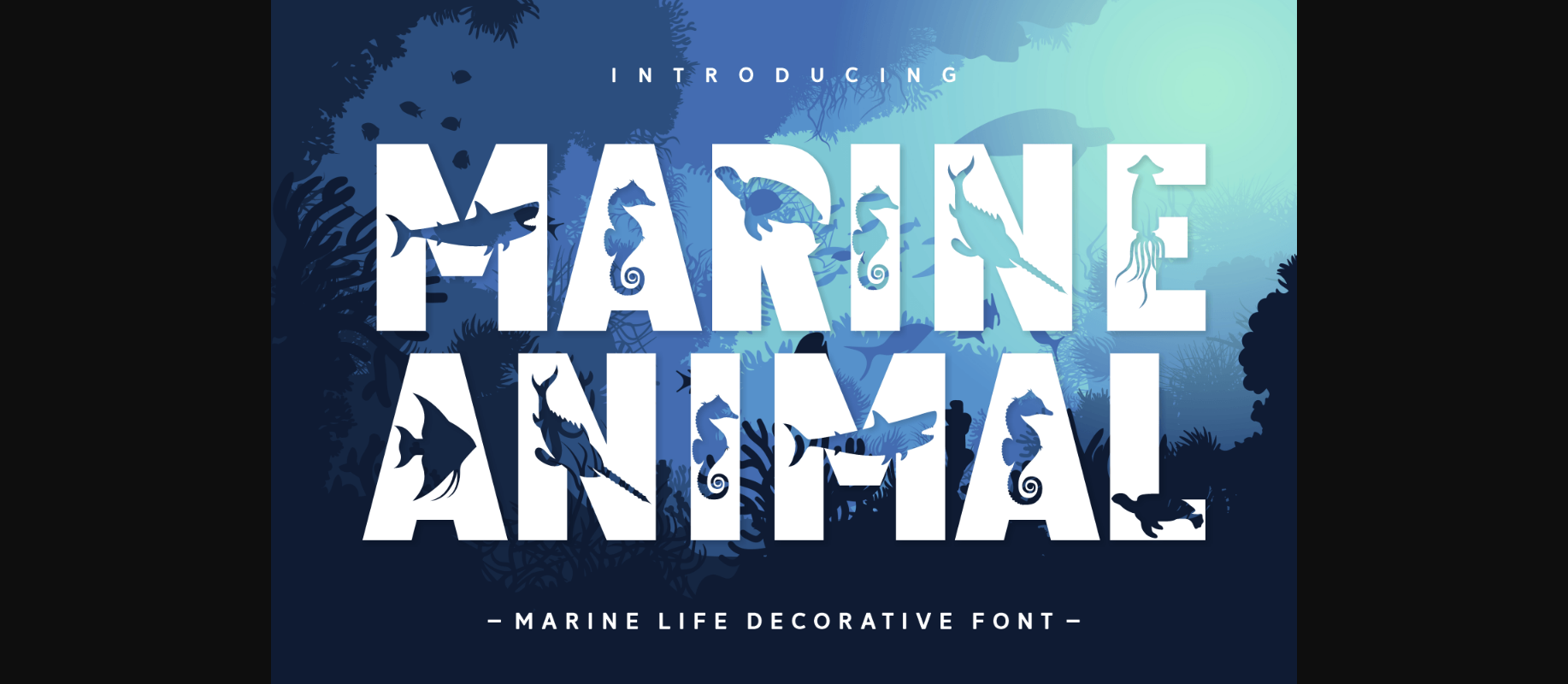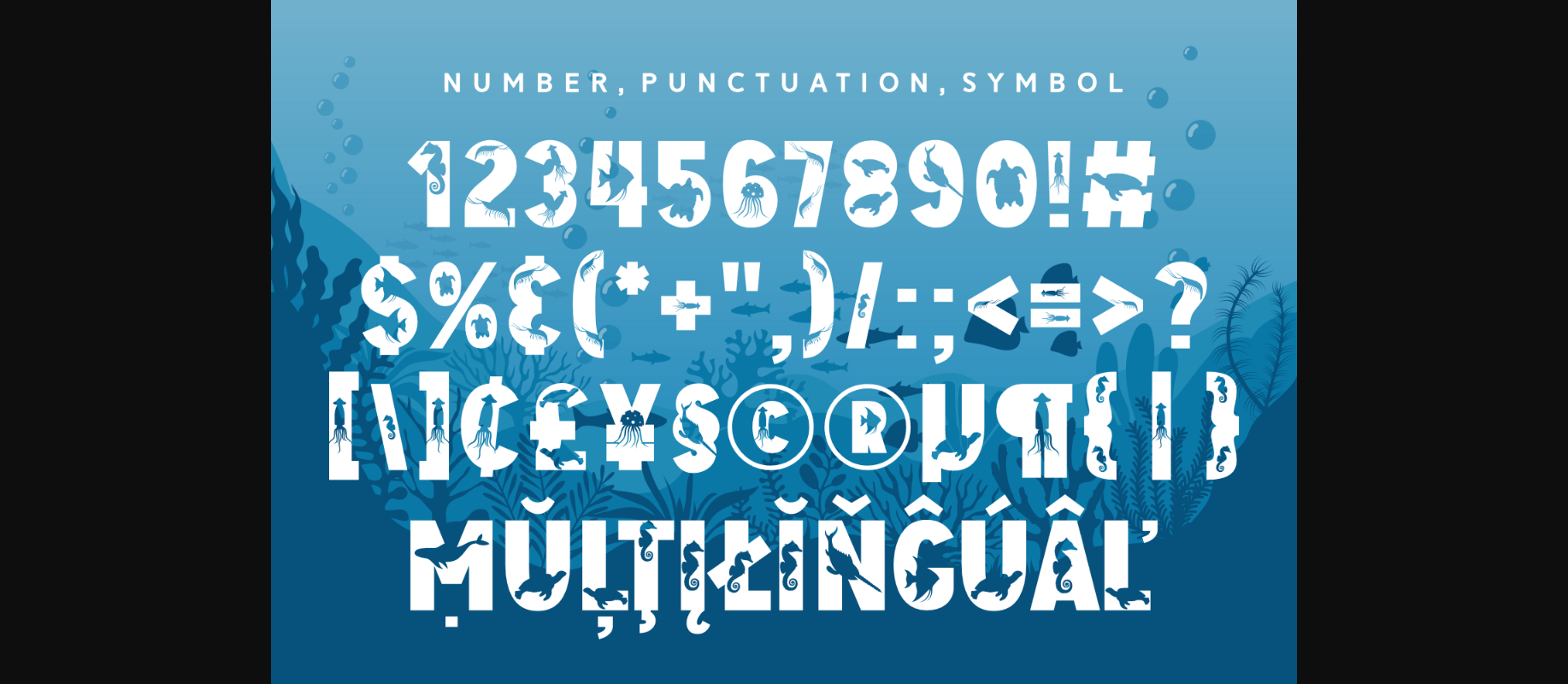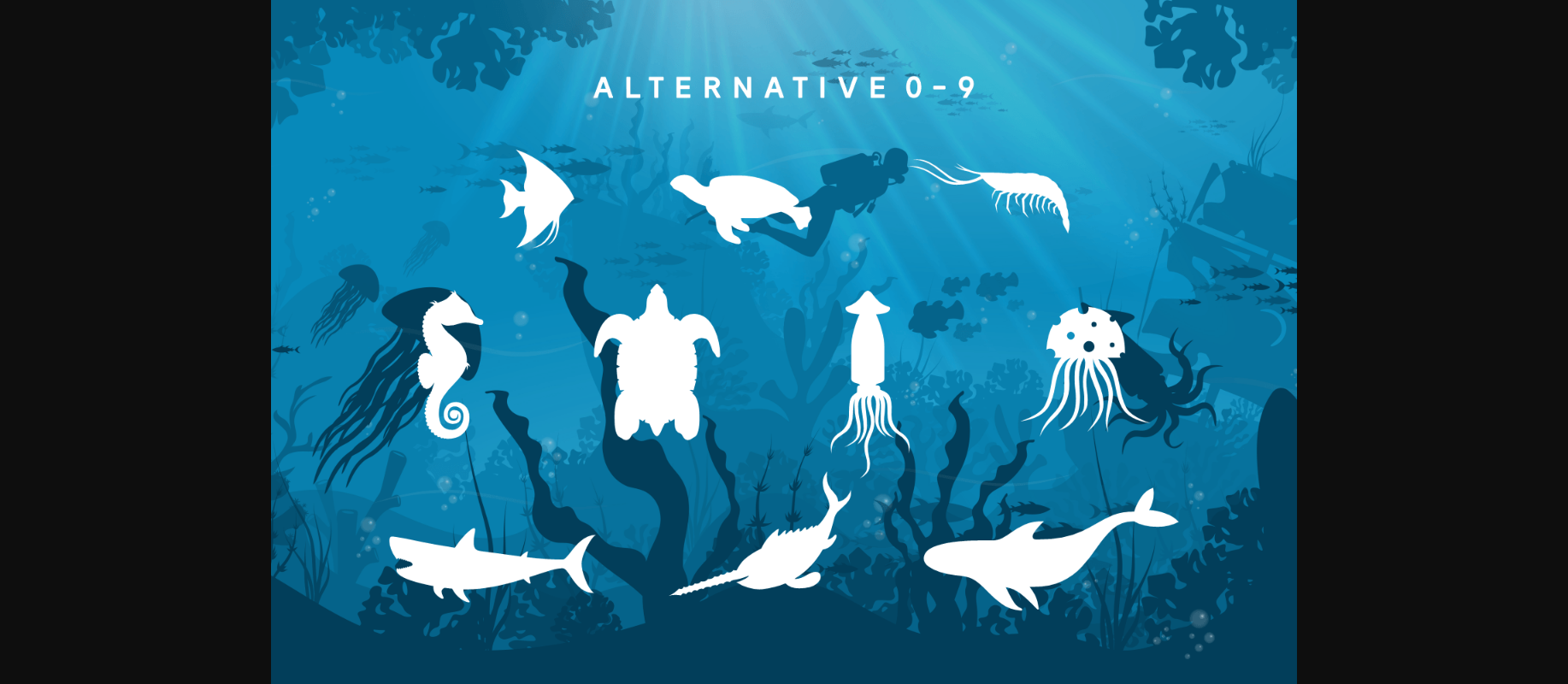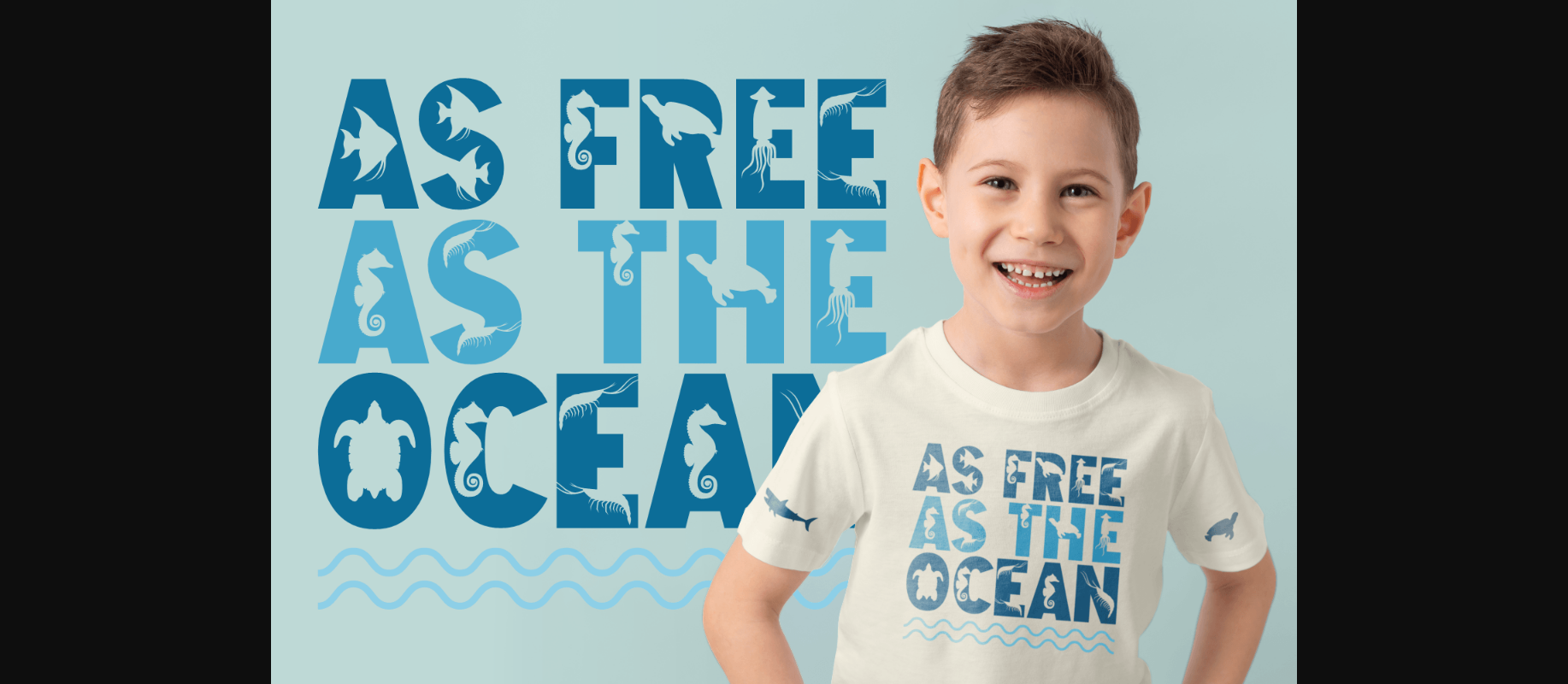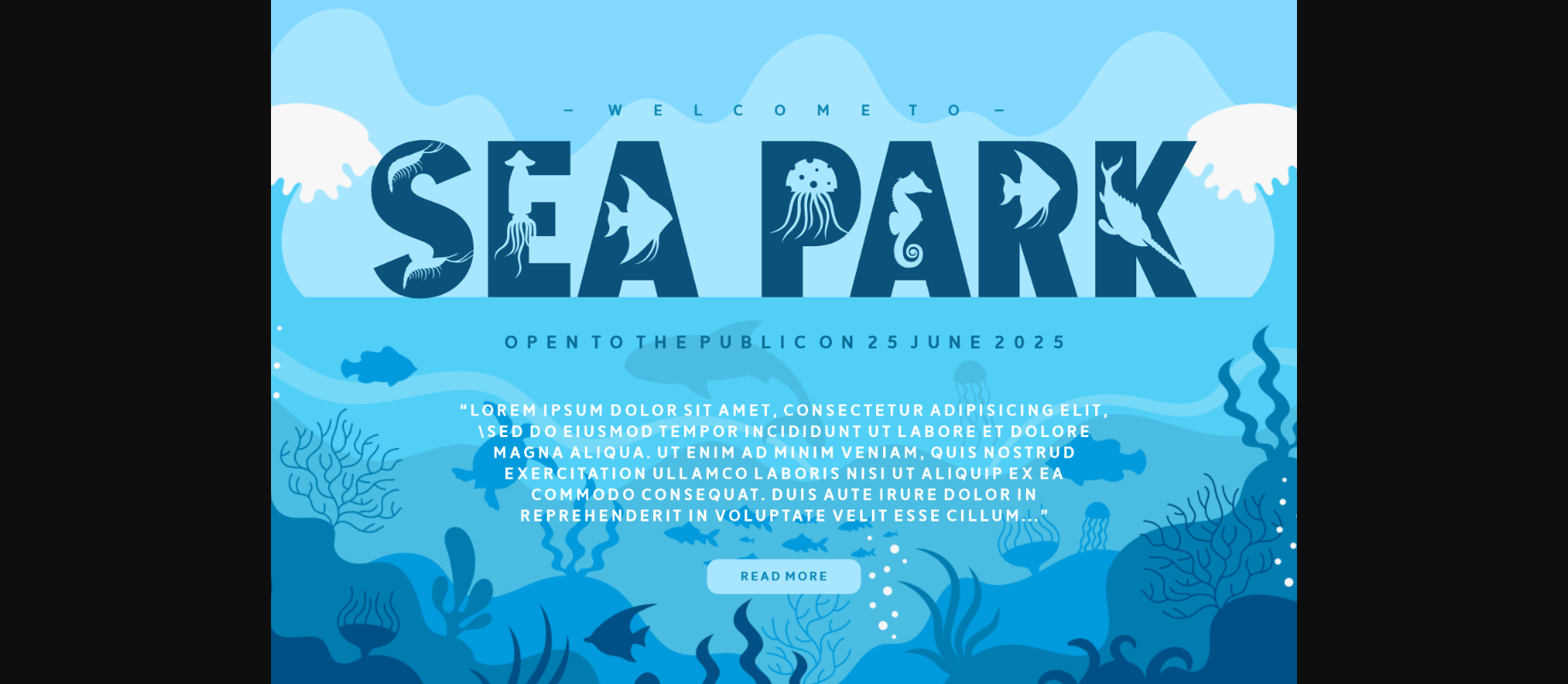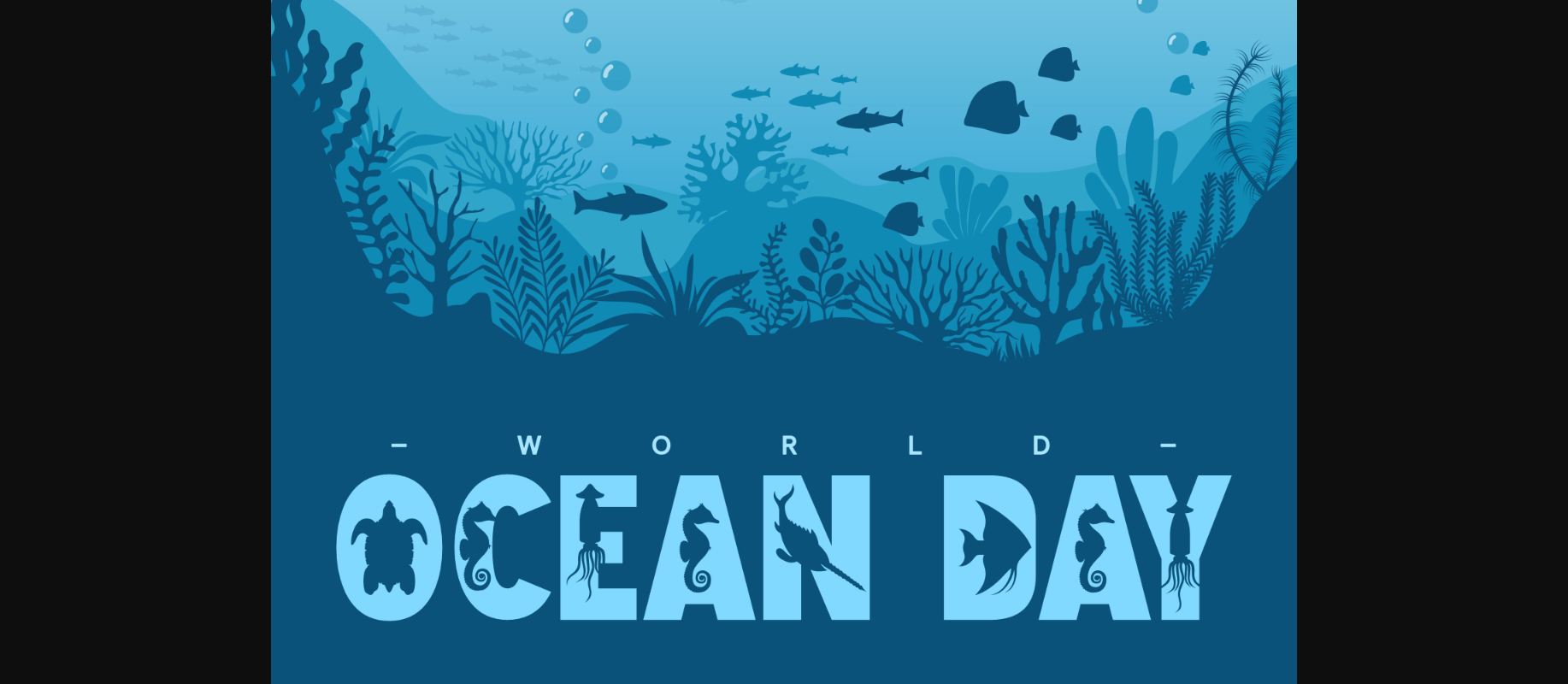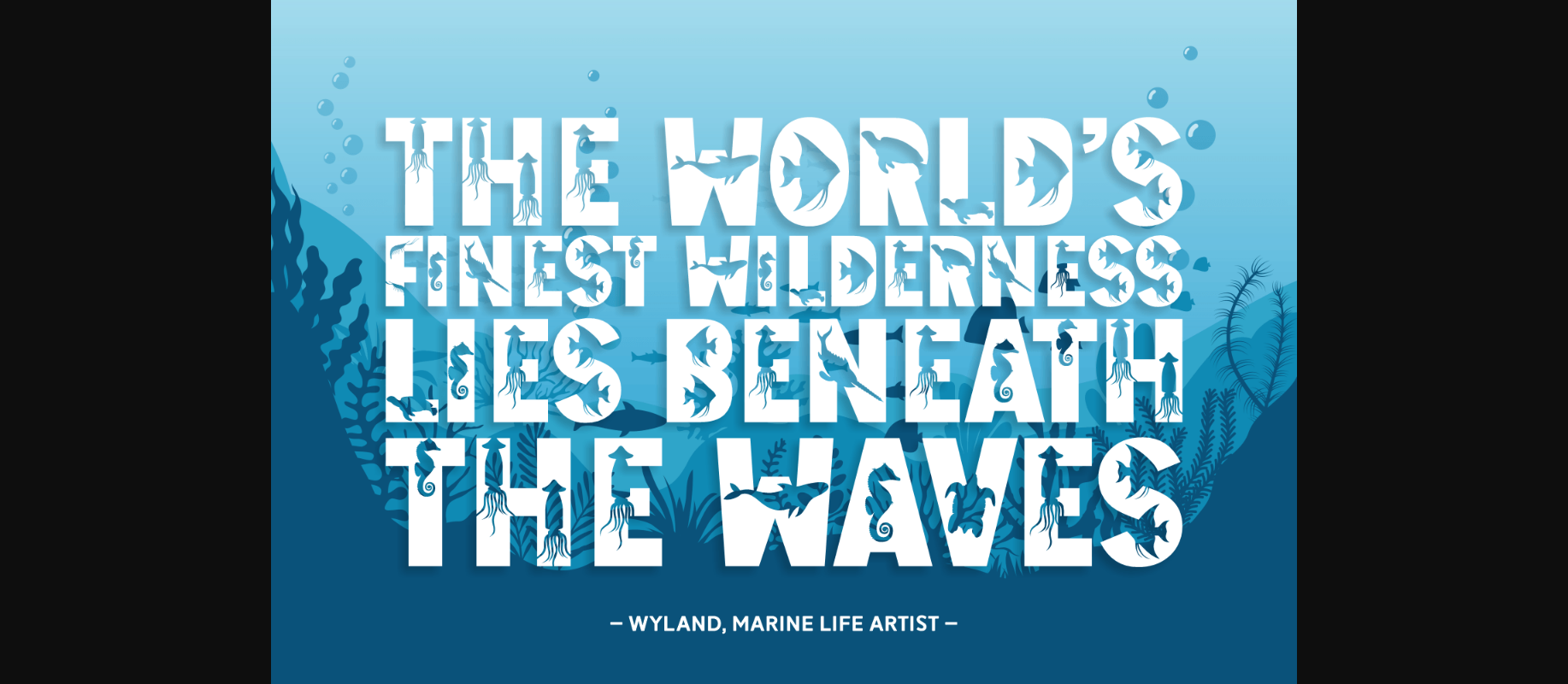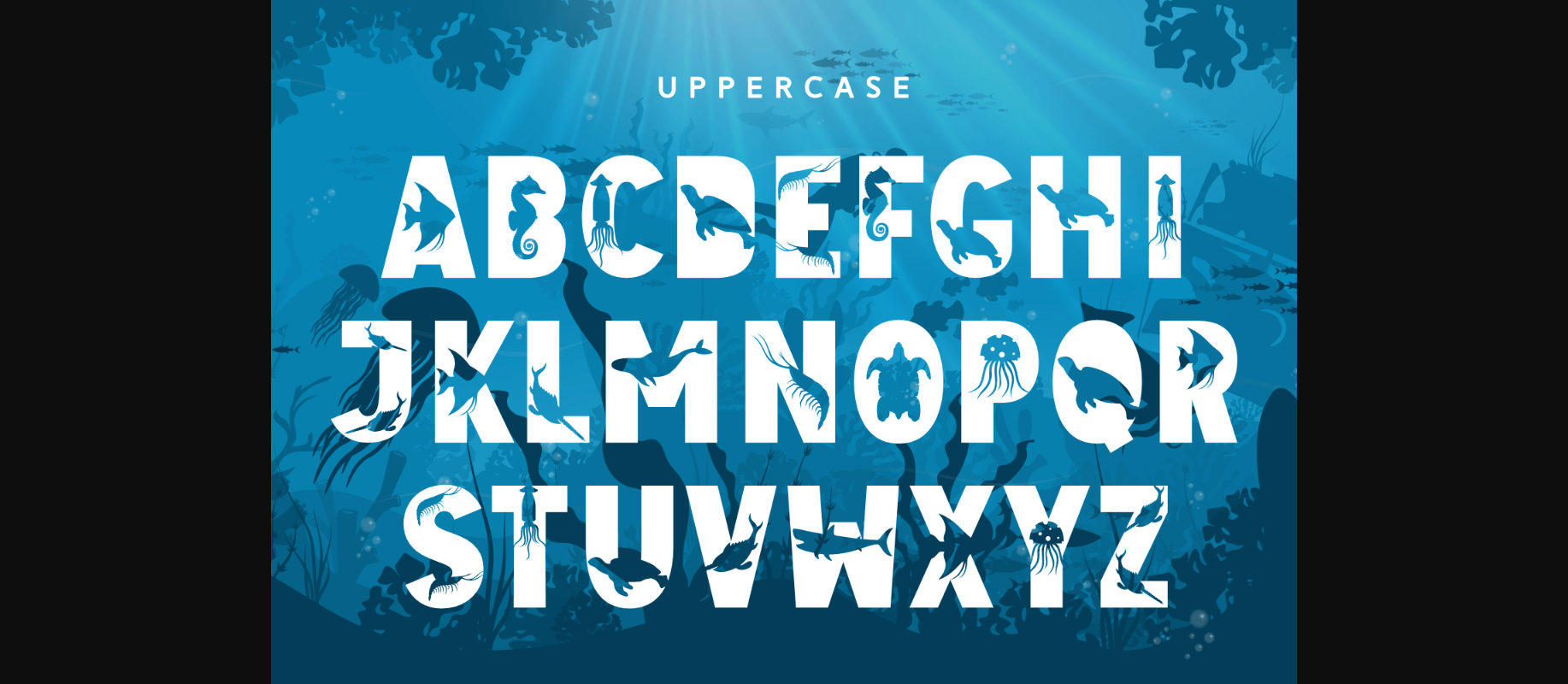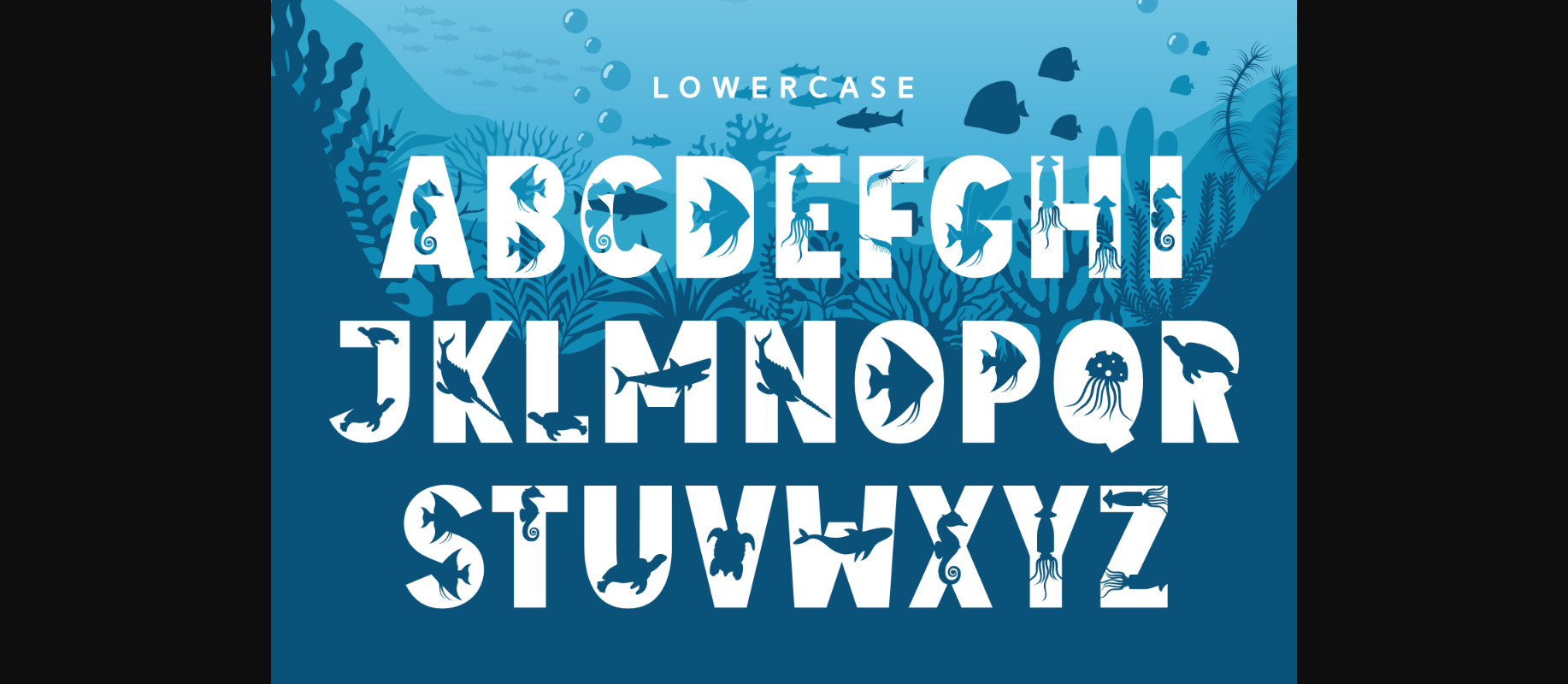
Marine Animal Font
About Marine Animal Font
Marine Animal is a fun and cute decorative font. This marine life-inspired font is perfect for any project to make it stand out! You can use this adorable font for invitations, cards, quotes, fabric prints, crafts, digital typography, and more.